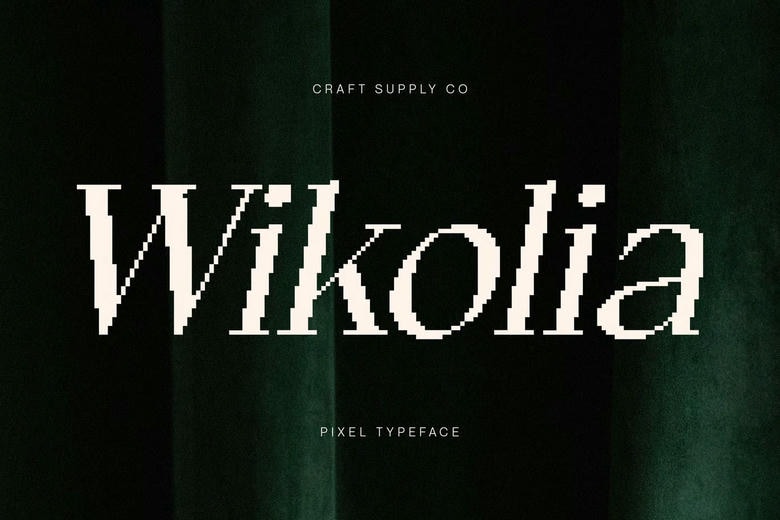
Wikolia Pixel Font
Wikolia pixel is a contemporary serif typeface that is in between minimalism and confidence. Its contrast and serif design give it the air of professionalism and it is a font that exudes confidence and authority in any setting.
Pixel Style for Sharp Modern Edge The pixel-like detailing is the characteristic feature of this font. The influence of the digital gives the design a sharp and crisp cut that brings modernism to the classic serif base. What comes out is a font that is both classic and new, straddling between the old and the new.
Confidence By using contrast in its letterforms, gives the perception of self-confidence and command. Its visual strength is ensured by the strong forms and fined proportions and the pixel texture increases its individuality.
Diverse in Editorial and Branding Editorial Spreads This font fits the editorial spreads, branding identities or any creative work, being flexible enough to suit the needs of either work. It can be logos, titles, layouts, or any other way, but it has a magnificent mix of clarity, elegance, and digital accuracy.
Wikolia Pixel Serif Font